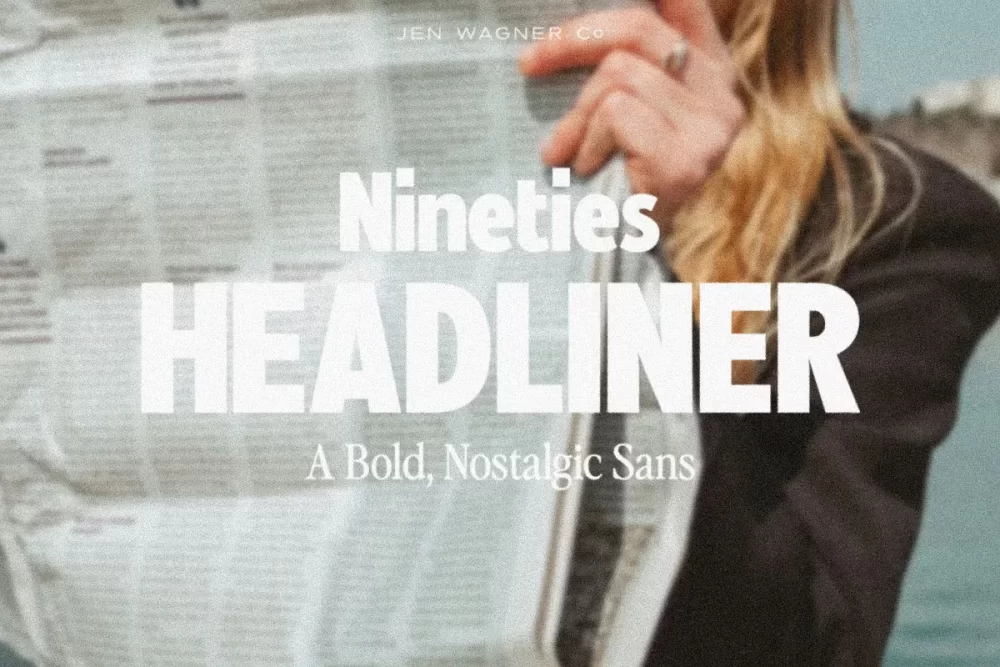
Nineties Headliner Font
Say hello to Nineties Headliner — a bold, nostalgic sans inspired by text-focused magazine ads of the 80s and 90s. As the classic, text-focused design of the 80s & 90s is making a comeback, I wanted to create the perfect sans for you to recreate the look!
With both upper and lowercase, Nineties Headliner works beautifully for logos or as primary header text, especially at large scale.
It’s gorgeous used on its own, and was also literally designed to accompany “Perfectly Nineties” (you’ll see them paired together frequently in the images).
Nineties Headliner Font – Nostalgic Sans